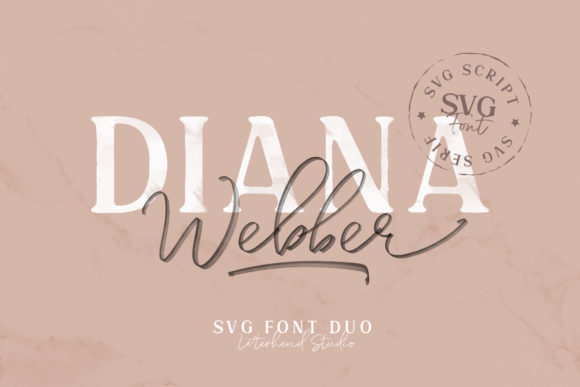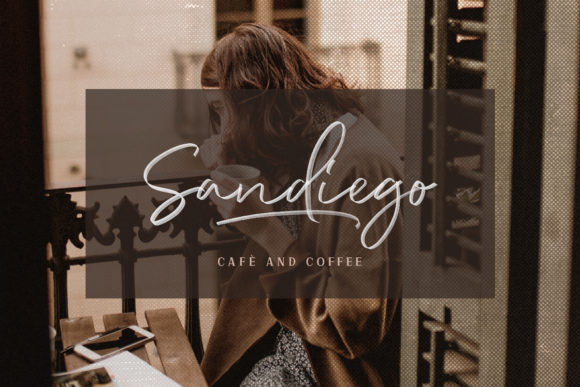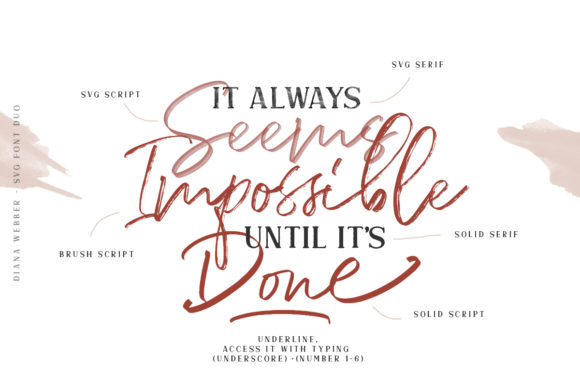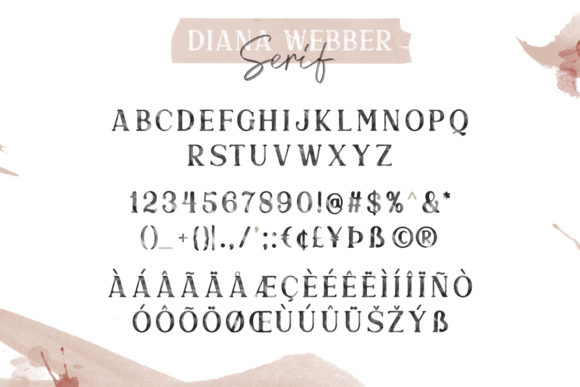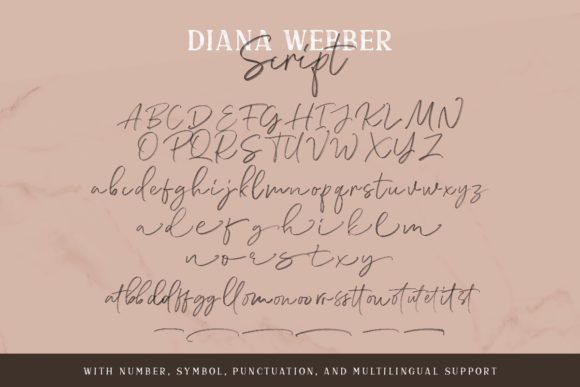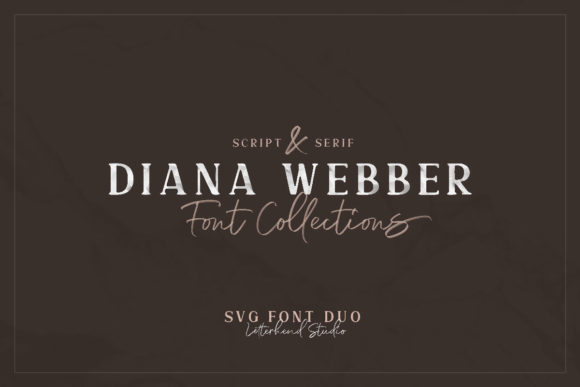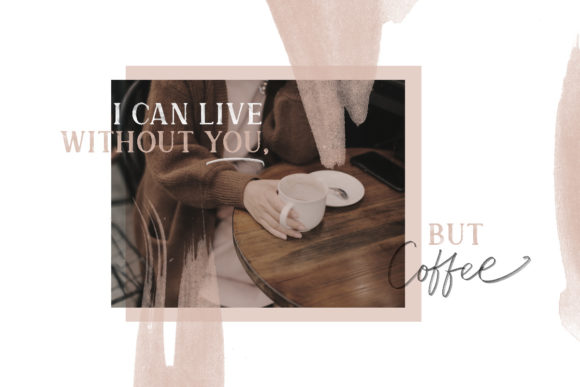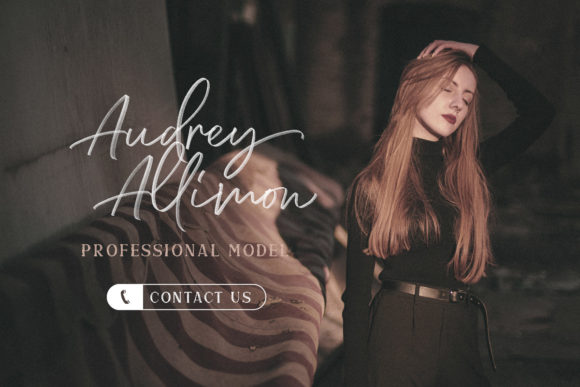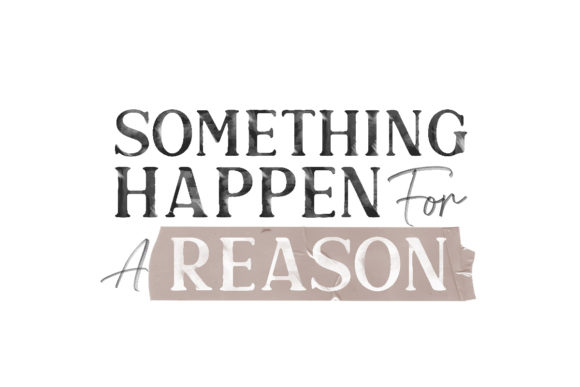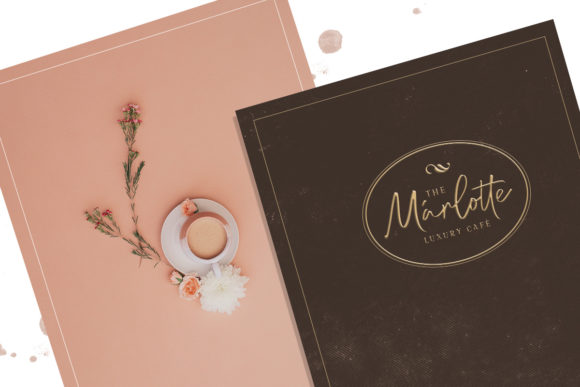
Diana Webber Family Font
About Diana Webber Family Font
Diana Webber is a display font family with a bold feel. This typeface comes in both uppercase & lowercase, and includes unique punctuation, symbols & numerals, and a stylistic set of alternate ligatures!